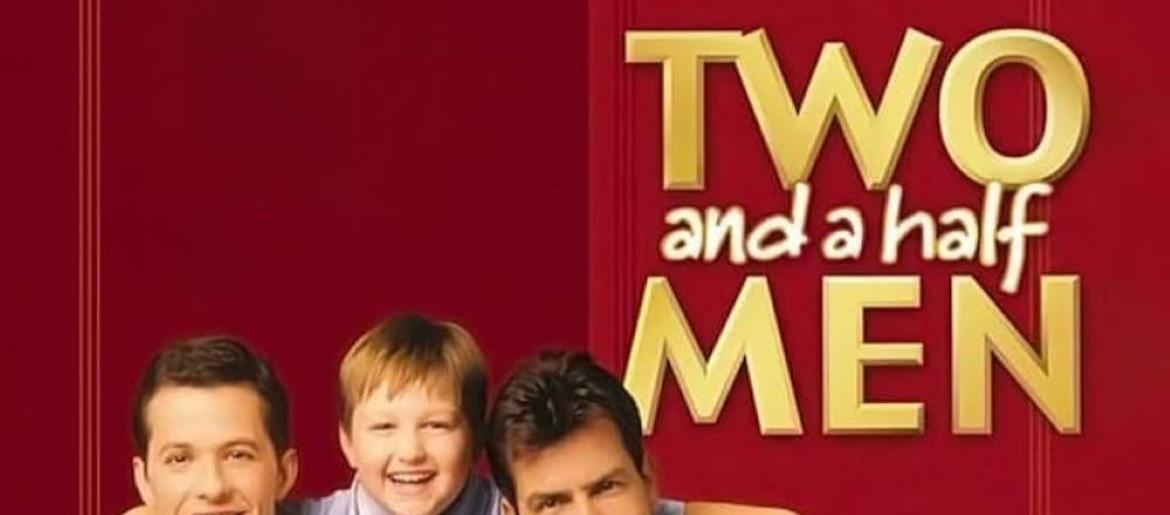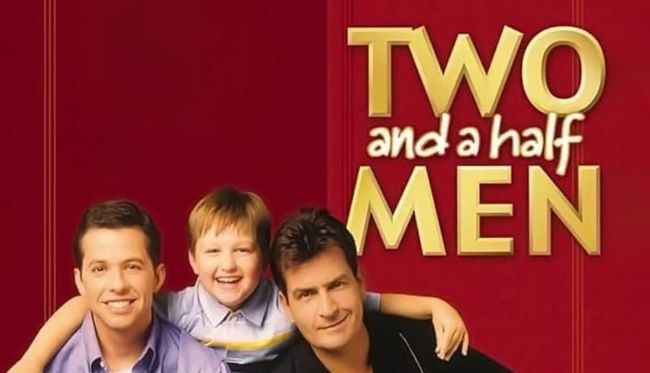
Two and a Half Men font reflects the playful yet stylish vibe of the popular sitcom Two and a Half Men. With its clean, bold lettering and slightly quirky design, the Two and a Half Men font captures the show’s mix of sharp humor and laid-back charm. I think this font is great for fun projects like party invitations, posters, or any design that needs a lighthearted and modern touch. Its balanced look makes it stand out without being too flashy, perfect for adding a clever and approachable feel. Using the Two and a Half Men font instantly brings a sense of comedy and personality to creative work.
Two and a Half Men Font
About Two and a Half Men
Two and a Half Men is an American sitcom that premiered in 2003. The series follows brothers Charlie and Alan Harper, along with Alan’s son Jake, as they navigate hilarious family dynamics, relationships, and everyday chaos in Malibu.